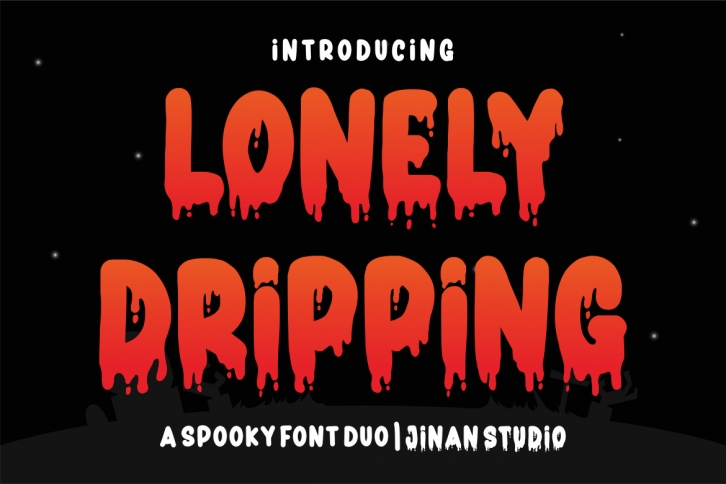
Lonely Dripping is a spooky and fun display font. Whimsical and a bit mysterious, this font is perfect for all your horror-themed and Halloween projects.